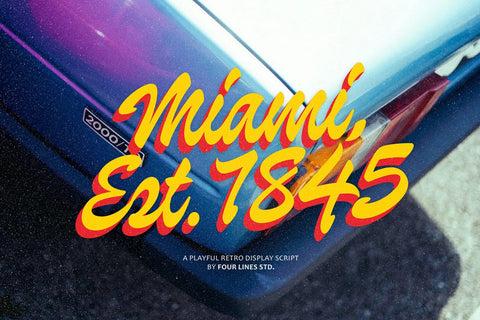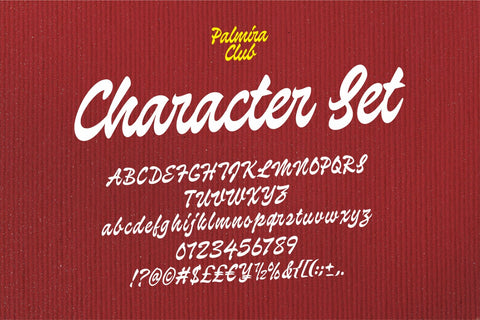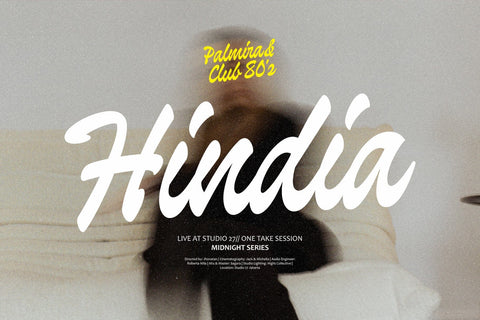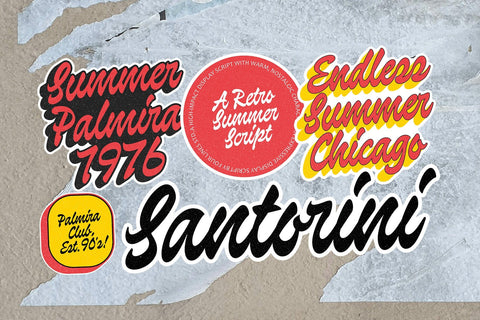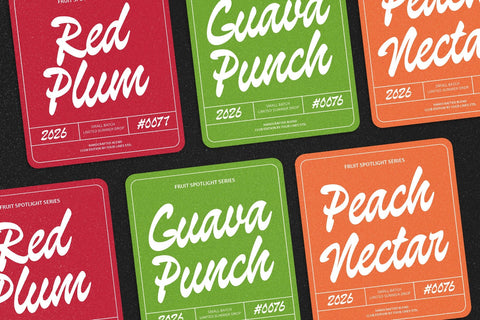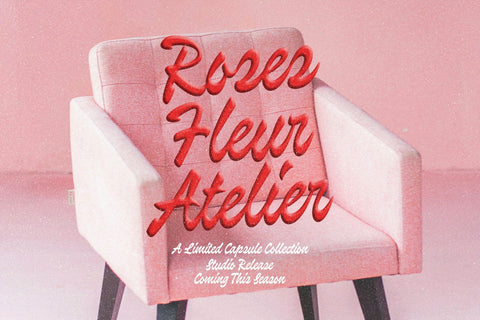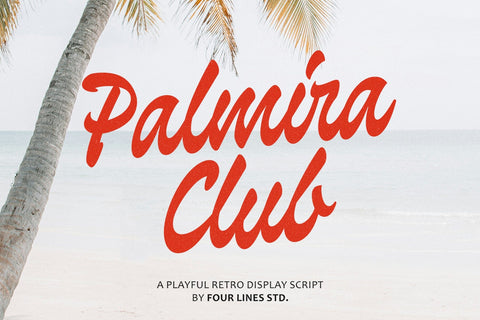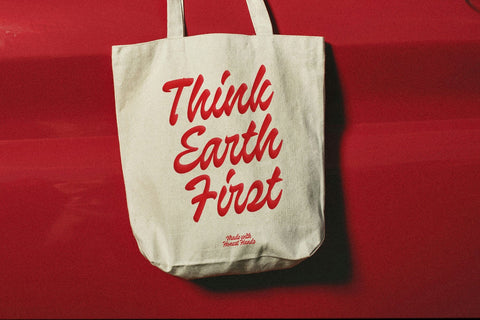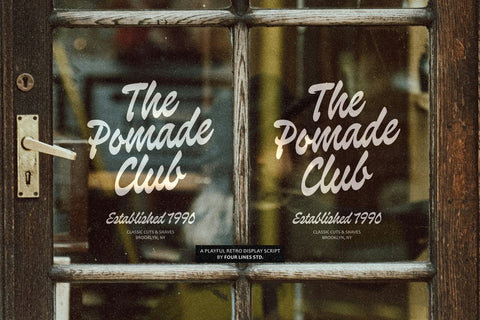
Palmira Club – A Playful Retro Display Script
Palmira Club is a playful retro display script with expressive and dynamic handwritten character. It is designed for headlines and branding projects that require a bold, warm, and distinctive appearance.
The letterforms feature a natural flow with soft stroke contrast and a lively baseline rhythm, creating an energetic impression while maintaining good readability at larger sizes.
It is well suited for logos, posters, product packaging, labels, merchandise, fashion branding, and promotional materials that call for a modern retro feel.